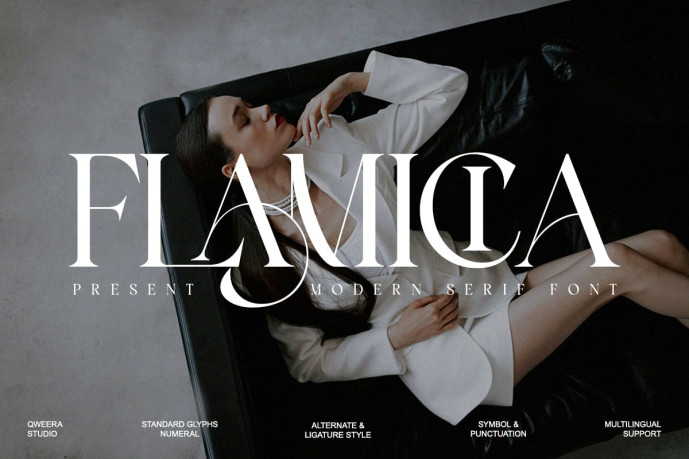
Flamicia – Modern Serif Font
Designer: IdhhamCholid
Flamicia – Modern Serif Font that embodies elegance and power. Designed with sleek contrast and refined ligatures, it elevates your design with a sense of class and sophistication. Perfect for editorial headlines, beauty branding, packaging, and exclusive logo identities. Flamicia radiates timeless elegance in every letterform.
Features:
• Regular & Italic
• Alternates & Ligatures
• Multilingual Support
• Elegant High-Contrast Forms
Perfect For: Fashion branding, editorial magazines, packaging, wedding invitations, and logos.